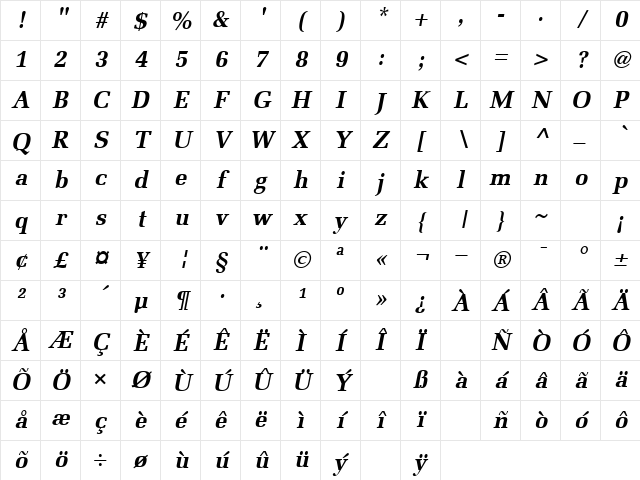
Endless Bold-Oblique
Style: Bold-Oblique
Design Context for Endless
Endless is a composed and adaptable typeface that performs quietly and consistently across a wide range of design contexts. The slanted form adds forward momentum and visual energy. Its bold stroke weight gives it real presence on the page.